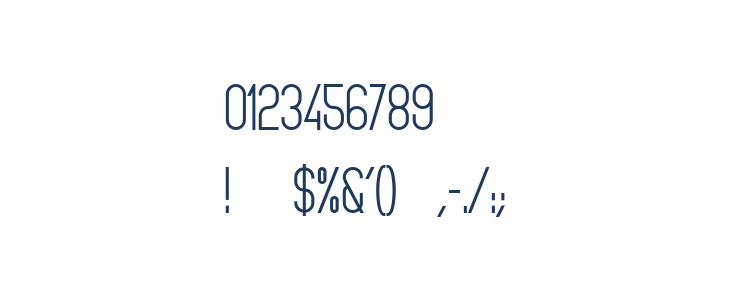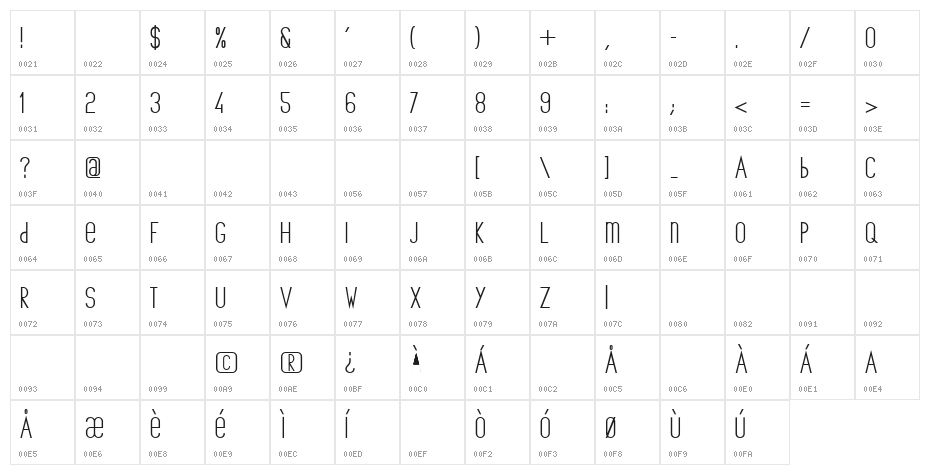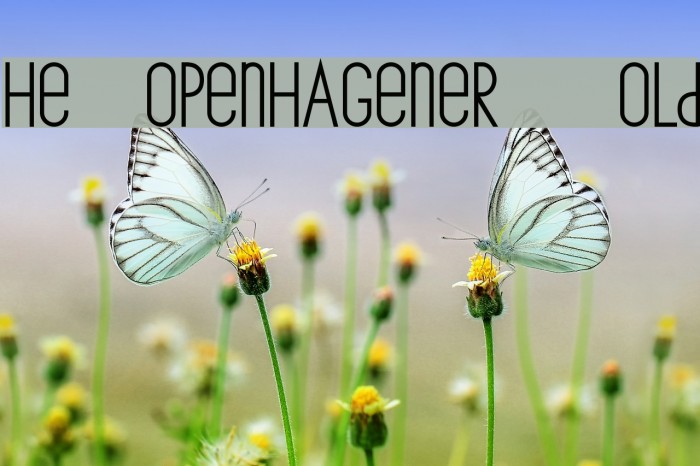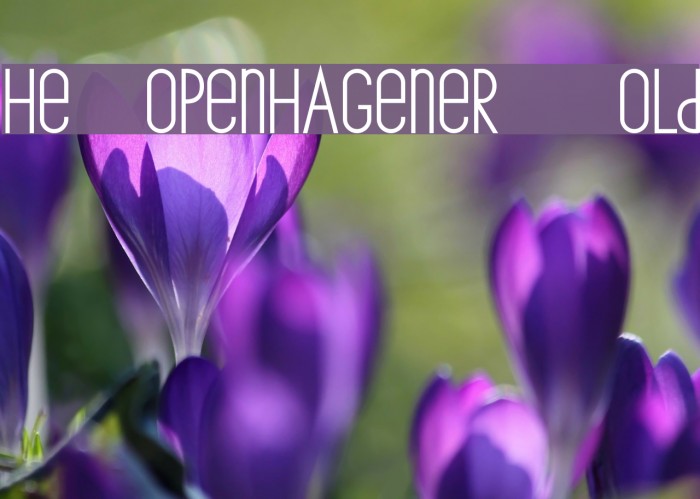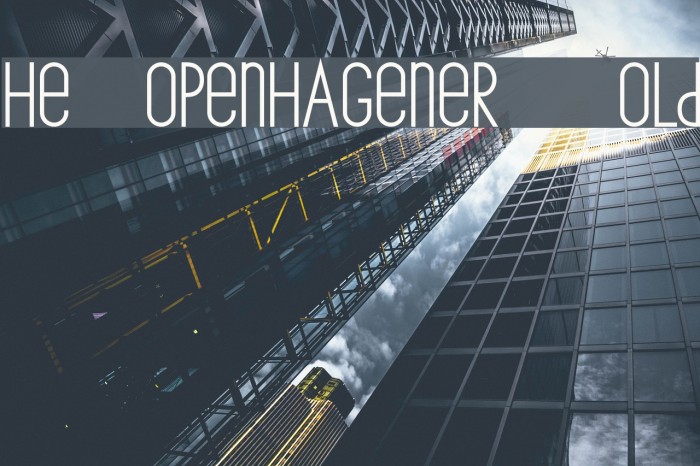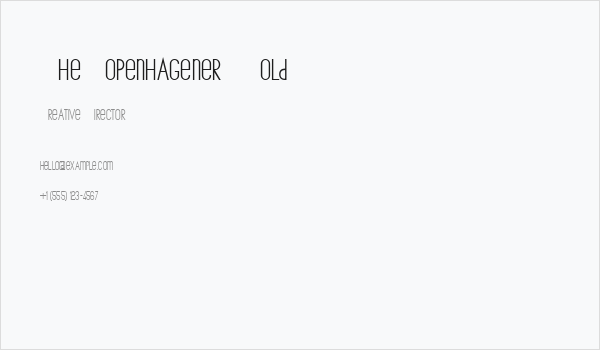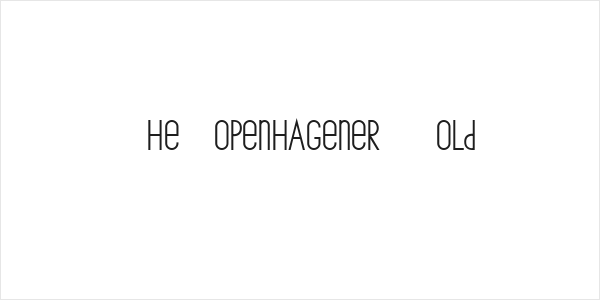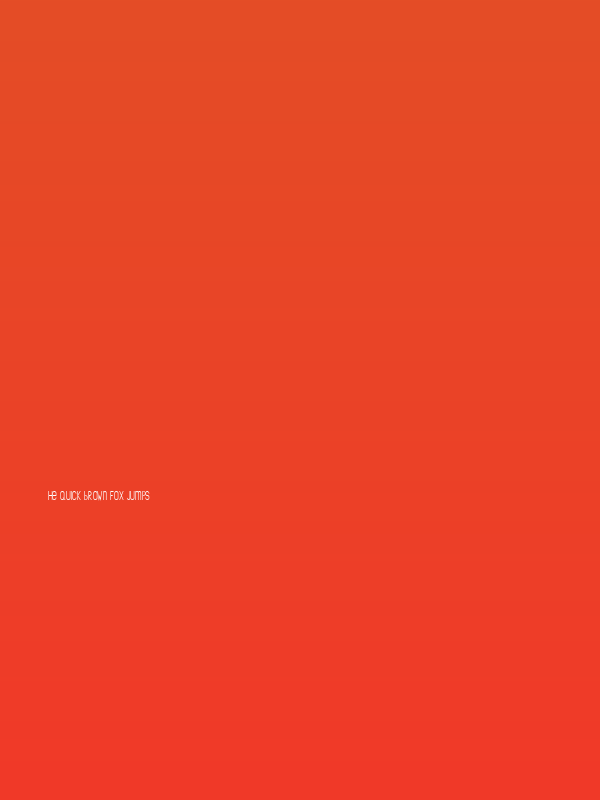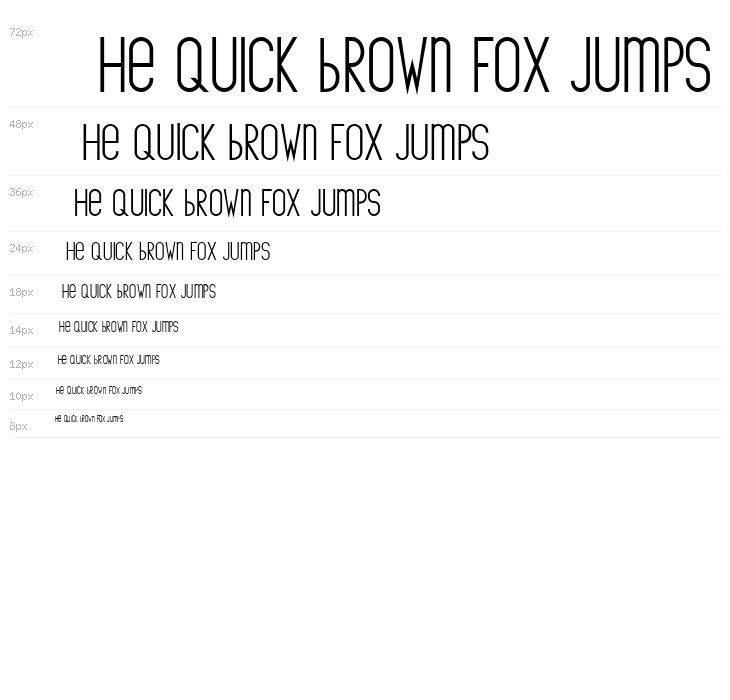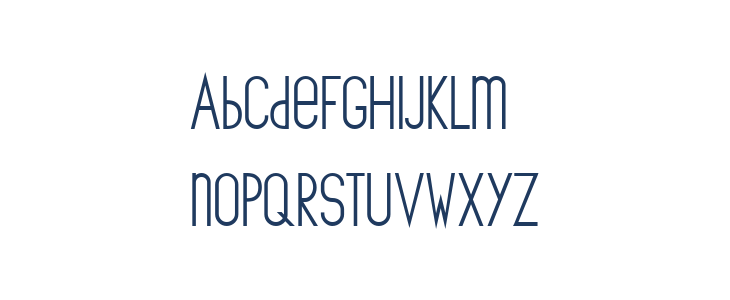
The Copenhagener Bold Font
The Copenhagener Bold Description
This font features a modern and sleek design with a geometric structure. The characters are tall and narrow, giving it an elegant and sophisticated appearance. The uppercase letters have a unique style with some unexpected curves and angles, particularly noticeable in letters like 'A', 'B', and 'W'. The lowercase letters maintain a consistent height and style, complementing the uppercase set. Numbers are clean and straightforward, aligning well with the overall aesthetic. Special characters are designed to match the font's modern look, ensuring consistency across all glyphs.
| Proposed Projects | Ideal for branding, editorial design, and modern web design projects. |